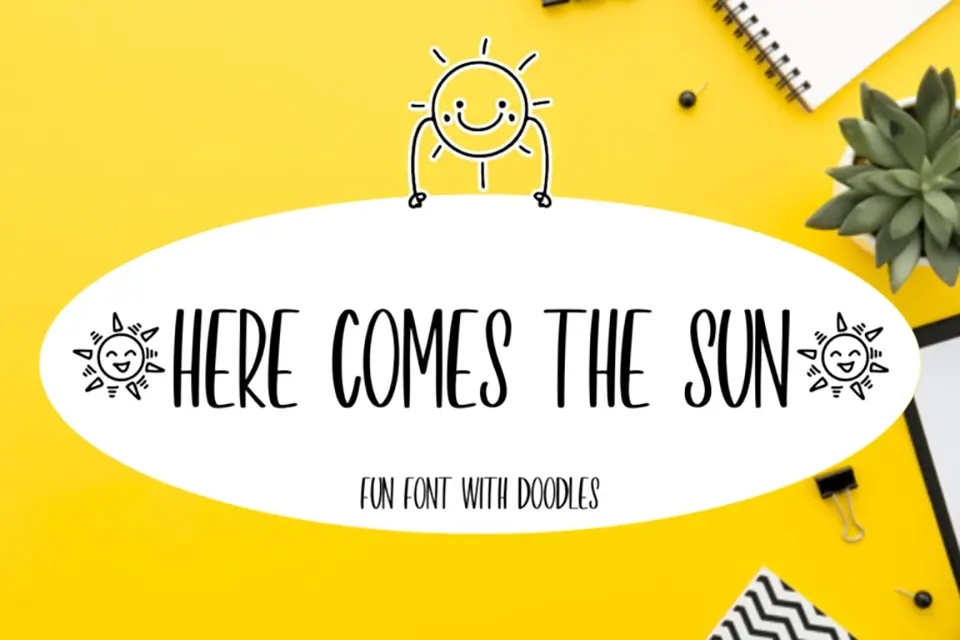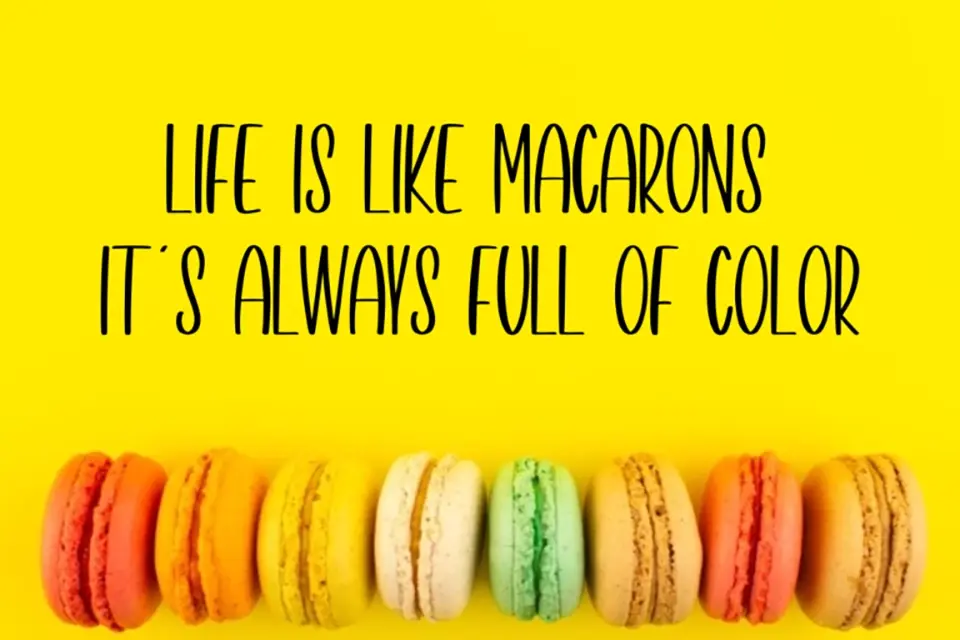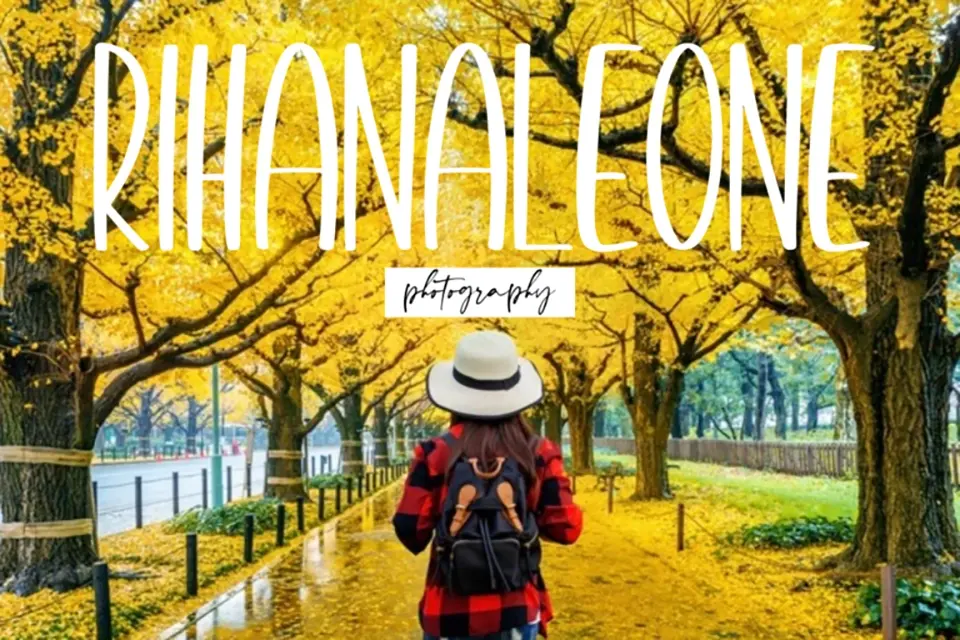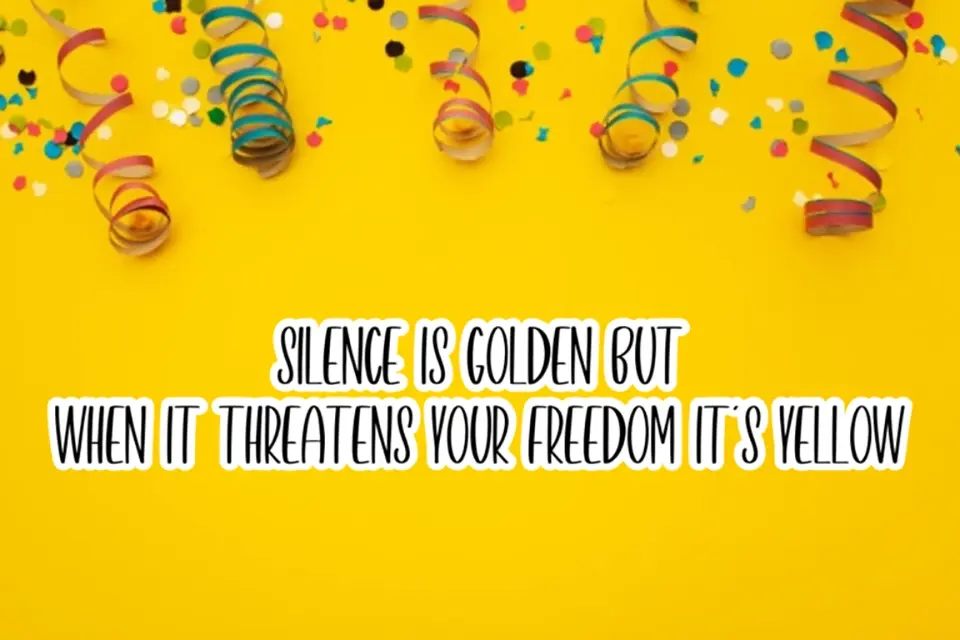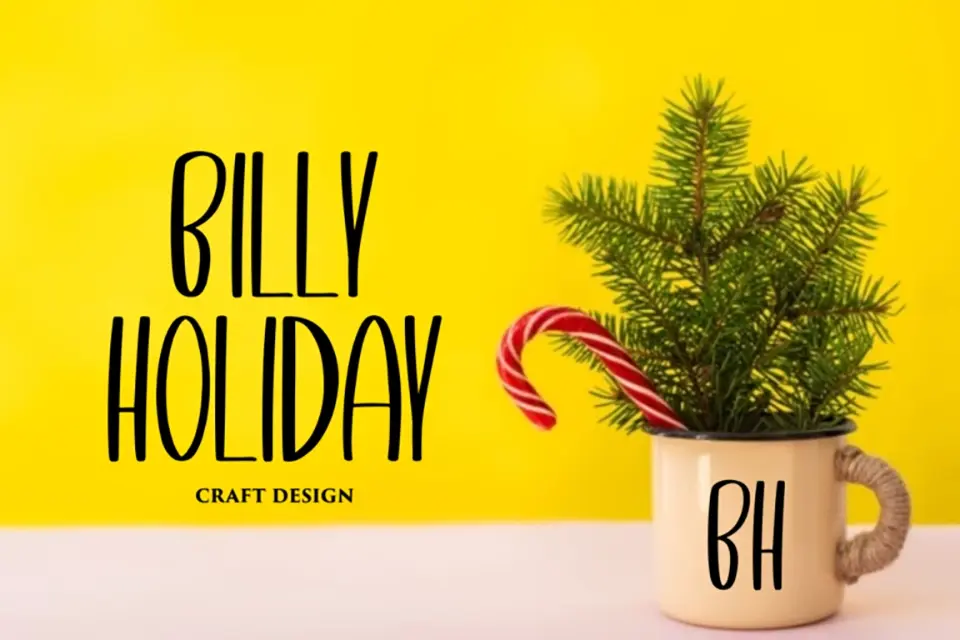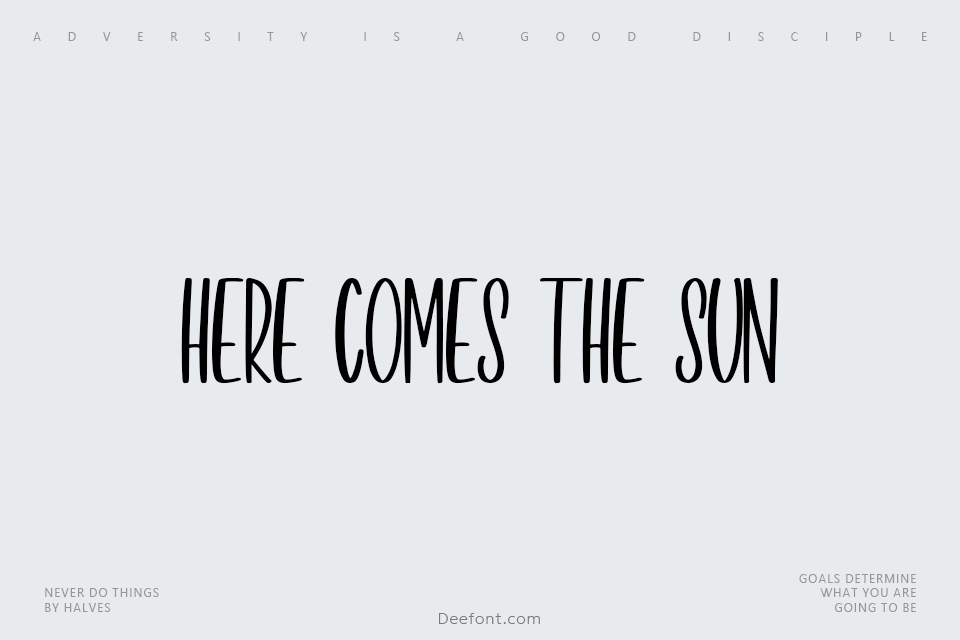
Here Comes The Sun Font
Here Comes The Sun is a fun and stylish handwritten display font designed for creative projects requiring personality and charm. Perfect for logos, branding, titles, social media posts, advertisements, product packaging, labels, and web design, this versatile typeface features both uppercase and lowercase letters with ligatures and decorative doodles. With multilingual support, it brings a contemporary edge to any typography project while maintaining timeless handwritten appeal. Ideal for designers seeking distinctive lettering that combines playfulness with professional polish for any creative endeavor.